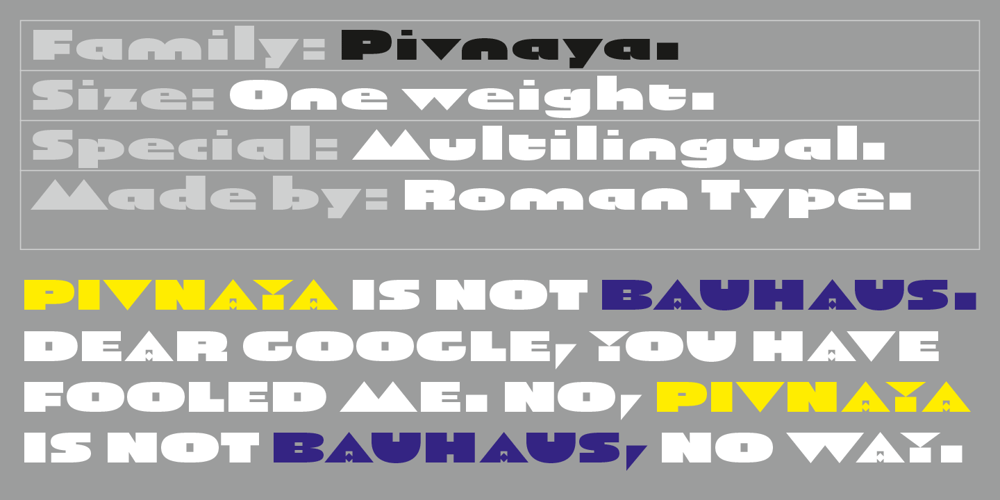
Pivnaya-Latin Font Family was designed by Roman Wilhelm and published by Roman Type. Pivnaya-Latin contains 1 styles and family package options. ‘Пивная’ (Pivnaya) means ‘bar’ or ‘brewhouse’ in Russian. Pivnaya Latin is a display font published by Roman Type. Initially designed for a poster, the family quickly turned multi-script. In 2019, the global design community is busy celebrating the centennial of Bauhaus, silently triggering the question as to if or how the phenomenon matters in the lives we lead today, or whether it could rather be reduced to mere historic purposes. At that point, I found myself falling into the Bauhaus trap myself, preparing a typeface design workshop for a group of Lithuanian and Russian students. But by a typing error, I accidently made Google translate ‘Brauhaus’ (brewhouse) instead of ‘Bauhaus’. That is why I called this family ‘Pivnaya’ in the end. Pivnaya Latin works for: Afrikaans, Albanian, Catalan, Croatian, Czech, Danish, Dutch, English, Estonian, Finnish, French, German, Hungarian, Icelandic, Italian, Latvian, Lithuanian, Maltese, Norwegian, Polish, Portugese, Romanian, Slovak, Slovenian, Spanisch, Swedish, Turkish, Vietnamese, Zulu. Though being a decorative font, the International Phonetic Alphabet (IPA) increases usability for all kinds of purposes.